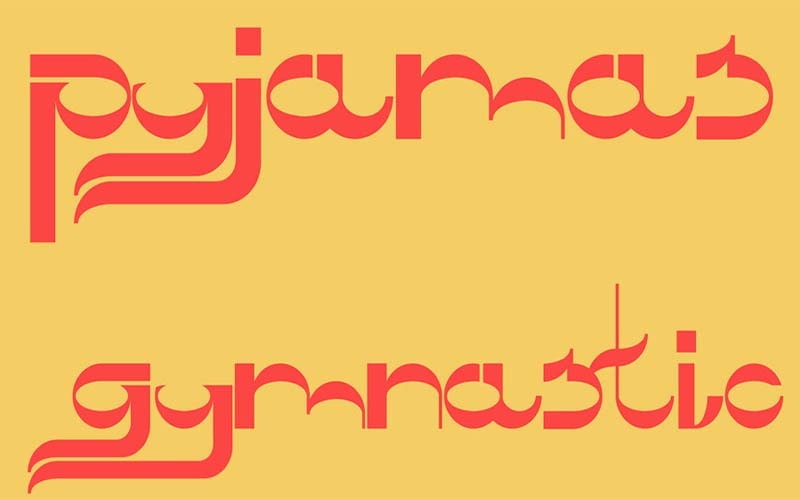
Agnes Font is a unique magical Script typeface inspired by handwriting that has multiple programmed ligatures. It comes in two different variations.
It is carefully designed by Dominik Szabo with a touch of elegance and uploaded on June 3, 2021, featured on the display. This is a beautiful combination of timeless elegance and authentic calligraphy.
Agnes is the perfect font for making original and outstanding designs. This regular font family has more than 203 alphanumeric characters, punctuation marks, and Latin extended characters.
This unique font has come with 82 characters set like 26 uppercase letters, 26 lowercase letters, and 10 numbers. And there are 20 special symbols, including punctuation marks.
Agnes Font